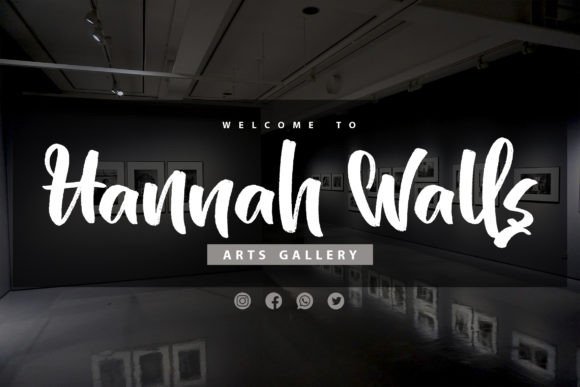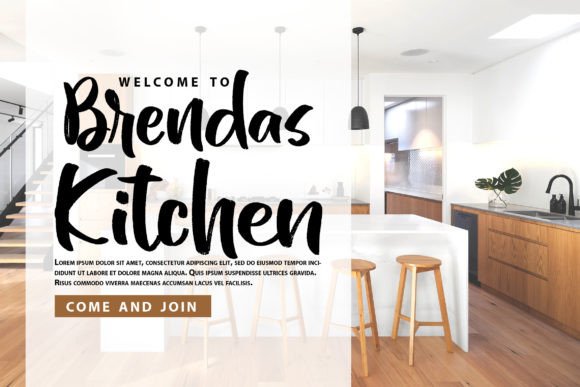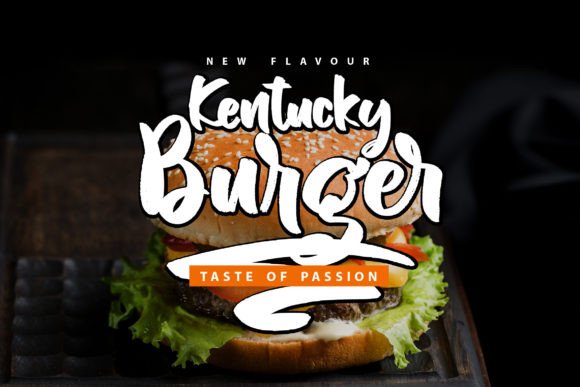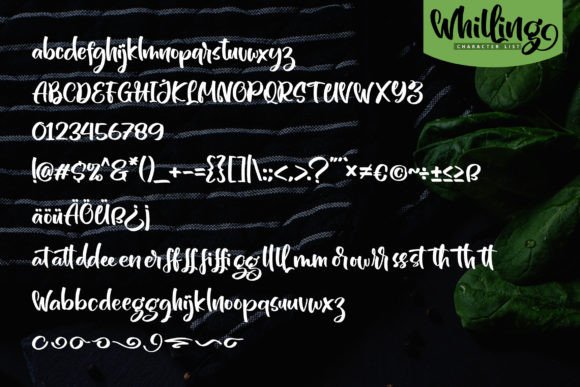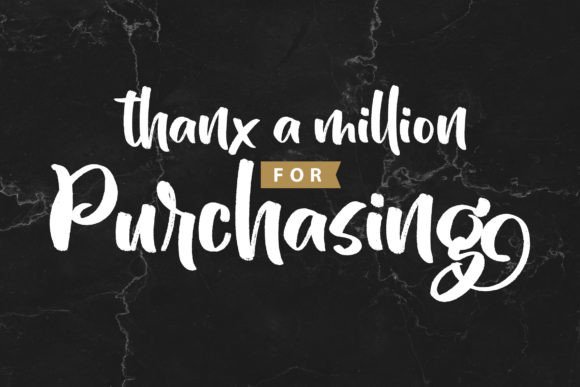
Whilling Font
About Whilling Font
**Whilling: A Cool and Unique Handwritten Brush Script Font**
**Whilling** is a cool and unique handwritten brush script font that brings a touch of class, elegance, and modernity to your design projects. With its versatile and contemporary appearance, this font is an excellent choice for a variety of design applications, including logos, branding, invitations, stationery, wedding designs, social media posts, and more.
**Whilling** stands out with its distinctive and handcrafted brush script letterforms, exuding a sense of style and sophistication. Each character is meticulously designed, making it an ideal choice for projects that demand a classy and elegant look with a touch of uniqueness.
This font’s versatility makes it suitable for a wide range of applications. Whether you’re working on branding and logos, wedding invitations, social media graphics, product packaging, or any other creative endeavor, **Whilling** adds a touch of refinement and creativity to your work.
In branding and logos, this font ensures your visual identity has an elegant and modern appearance, making it memorable and impactful.
For wedding designs and stationery, **Whilling** enhances the romantic and personalized aspects of your projects, setting the tone for unforgettable celebrations.
In conclusion, **Whilling** is more than just a font; it’s a design asset that brings a unique blend of style and modernity to your creative projects. Whether you’re designing for special occasions, branding, or various other contexts, choose **Whilling** to infuse your work with its distinct and refined charm. Embrace its contemporary appeal, and let your creativity flourish with sophistication and creativity.